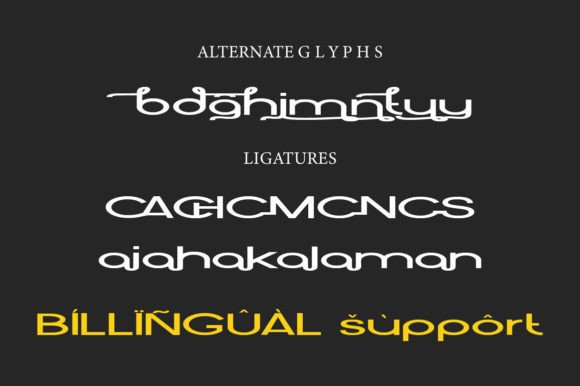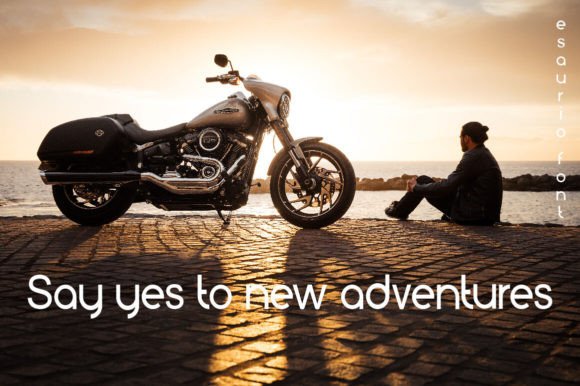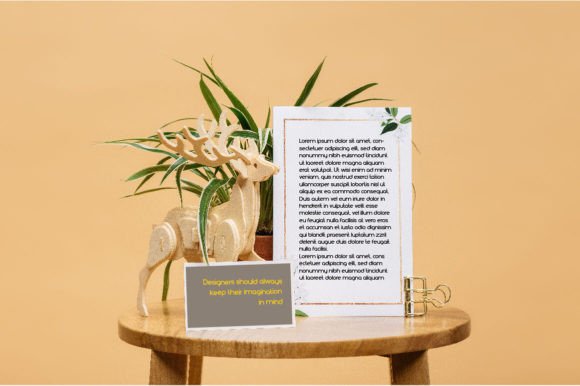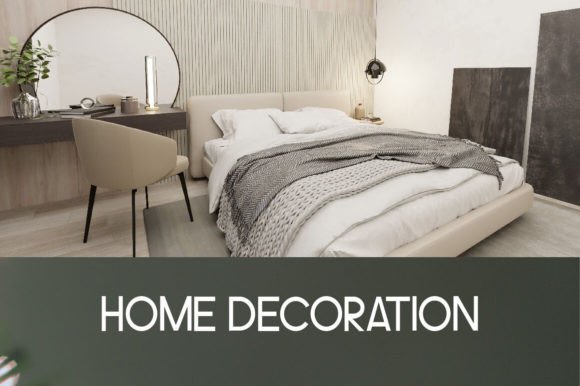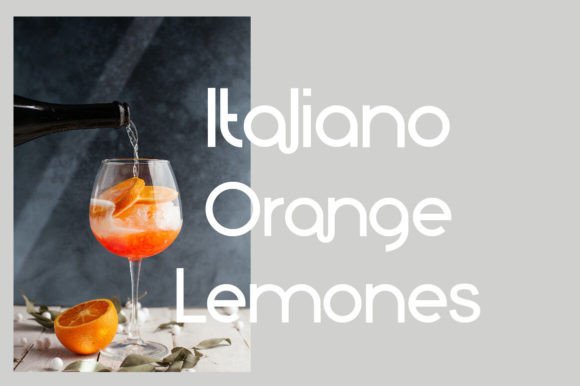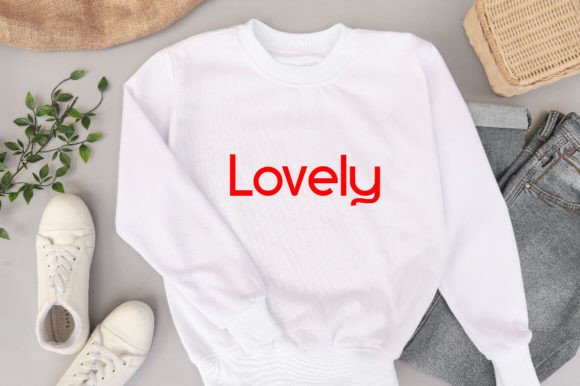
The Elusive Font: A Designer’s Quest for Esaurito
I still remember the frustration of working on a project, hours spent searching for the perfect font, only to come up empty-handed. My client wanted an elegant, sans-serif typeface that exuded sophistication and style. I scoured the internet, tried out countless fonts, but nothing seemed quite right. That was until I stumbled upon Esaurito Font, a beautiful creation by Gunaloecraft. In this article, I’ll share my experience with Esaurito, its features, and how to make the most of this stunning font.
First Impressions: What I Love About Esaurito
As soon as I opened Esaurito, I knew I had found something special. Here are a few things that caught my attention:
- ✨ Elegant and clean design: Esaurito’s sans-serif lines are perfect for a wide range of projects, from logos to magazine covers.
- ✅ Versatility: This font is suitable for both masculine and feminine branding, making it a great choice for fashion-related designs.
- 💻 OpenType features: Esaurito comes with standard glyphs, alternate glyphs, ligatures, numerals, symbols, and punctuation, giving you plenty of creative options.
The Honest Review: A Few Quirks
No font is perfect, and Esaurito has a few minor limitations:
- 🤔 Limited language support: While Esaurito covers the basics, it may not support more exotic languages.
- ⚠️ Occasional kerning issues: As with any font, you may need to adjust kerning for optimal results, especially in larger text blocks.
The Designer Inspiration Behind Esaurito
Gunaloecraft, the creator of Esaurito, is a design studio passionate about crafting beautiful typography. According to their story, Esaurito was inspired by the elegance of modernist design and the simplicity of sans-serif fonts. The goal was to create a versatile font that could be used in a wide range of applications, from fashion branding to editorial design.
Here are a few questions I’ve encountered while working with Esaurito:
- Q: What type of projects is Esaurito best suited for?
- A: Esaurito is ideal for logos, branding, stationery, magazine covers, website headers, and more.
- Q: Does Esaurito support non-English languages?
- A: While Esaurito covers the basics, language support may be limited; check the font documentation for specifics.
- Q: Can I use Esaurito in both print and digital projects?
- A: Absolutely! Esaurito’s versatility makes it suitable for both print and digital applications.